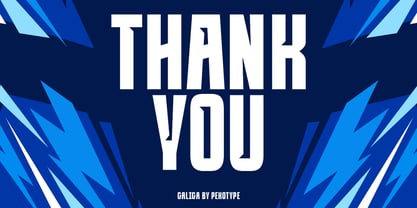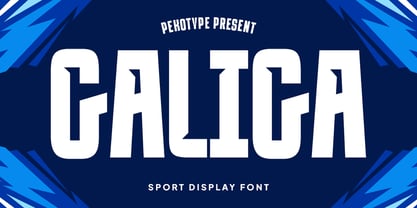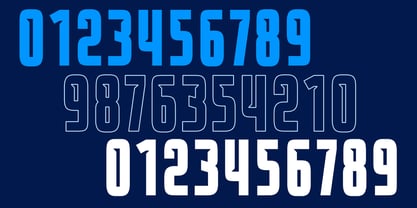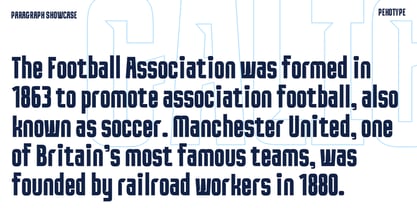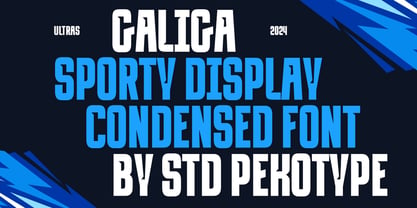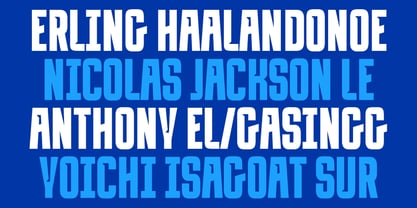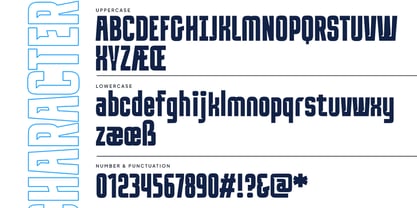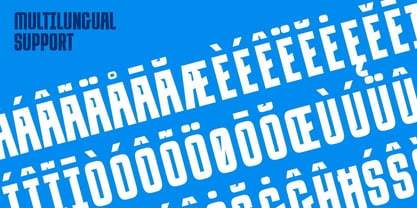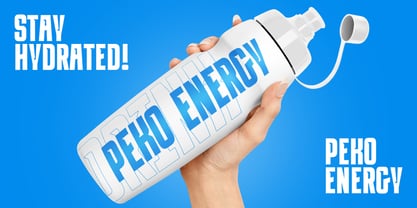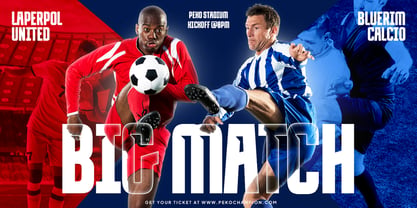
Galiga
by Pekotype
The Galiga Font Family was designed by Galang Bryan and published by Pekotype. Galiga contains 1 styles. More about this family
Elevate your game with GALIGA, a sleek, modern typeface built to bring an electrifying presence to your designs. It is perfect for bold branding, dynamic logos, and high-impact social media graphics, especially in the realm of football and beyond. GALIGA’s strong lines and athletic style make it a powerhouse choice for sports-driven visuals, capturing attention with every letter. Embrace the energy and redefine your look with GALIGA—where modern meets momentum!
Designers: Galang Bryan
Foundry: Pekotype